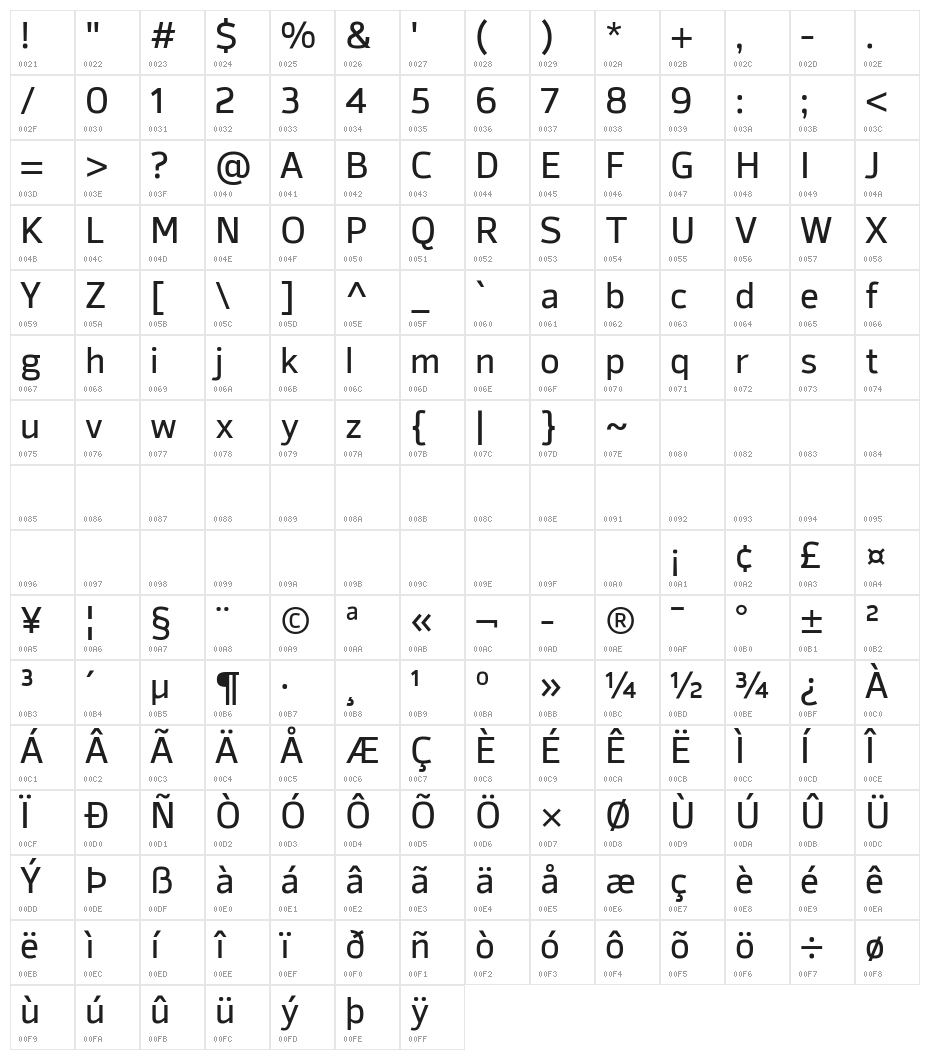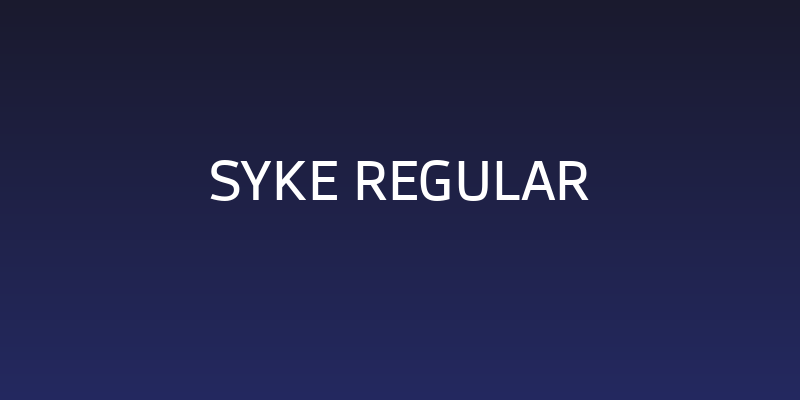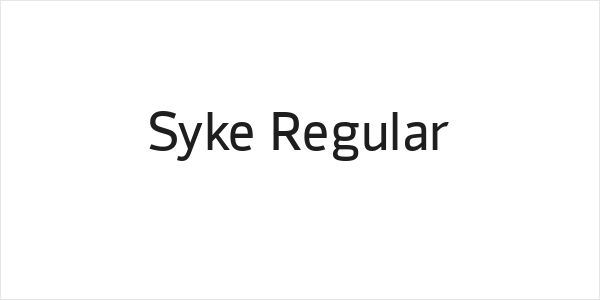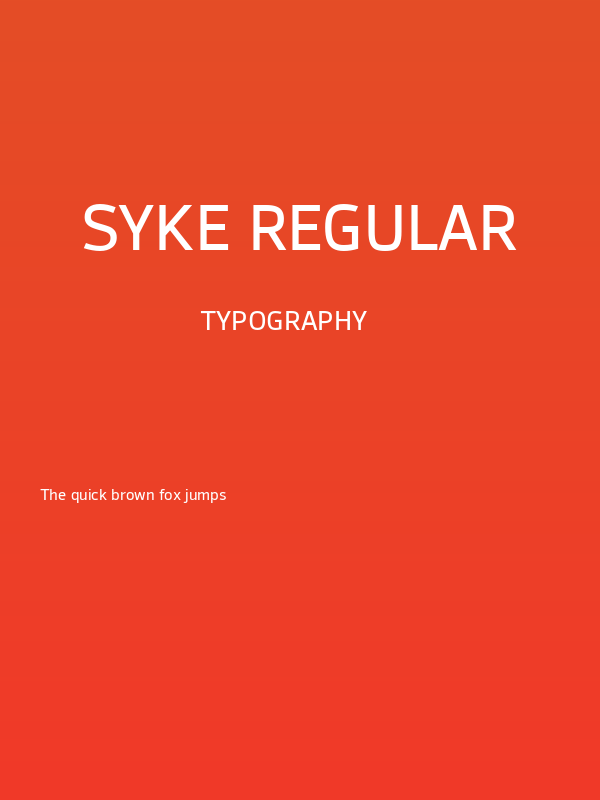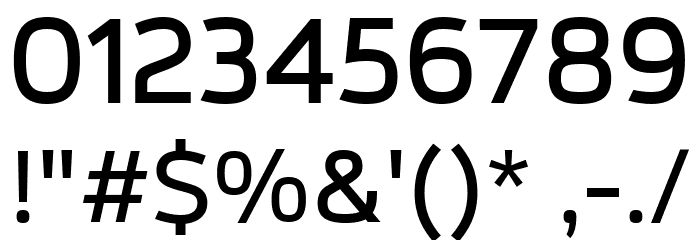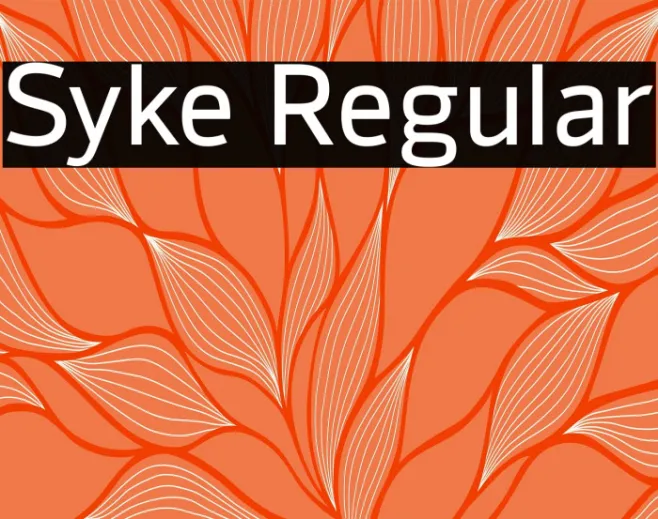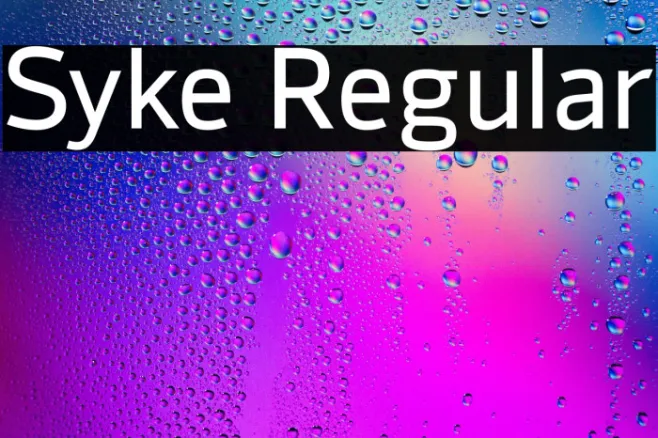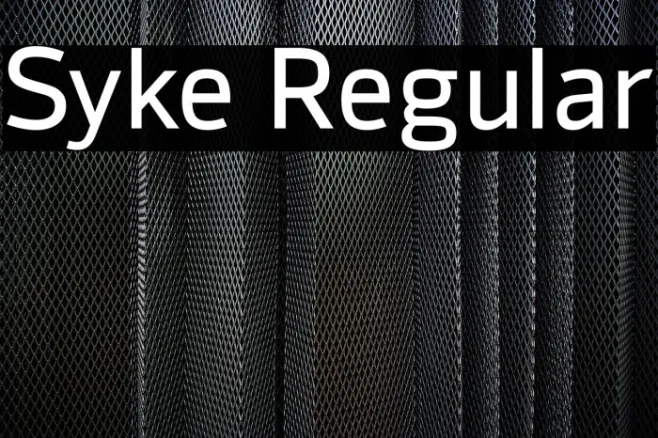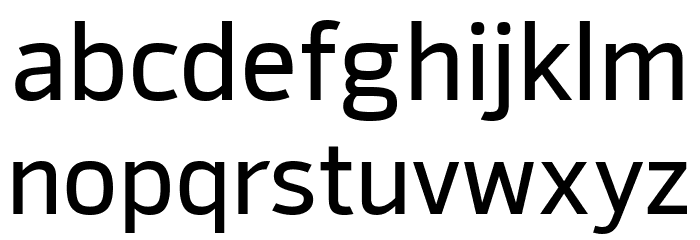
Syke Regular Font
Syke Regular Description
This font features a clean and modern sans-serif design, characterized by its geometric shapes and uniform stroke width. The letters are well-proportioned, offering a balanced and harmonious appearance. The uppercase characters are bold and impactful, while the lowercase letters maintain a consistent and readable form. The numerals are clear and distinct, making them suitable for a variety of applications. Special characters are well-integrated, maintaining the overall aesthetic of the font. This typeface is versatile, suitable for both digital and print media.